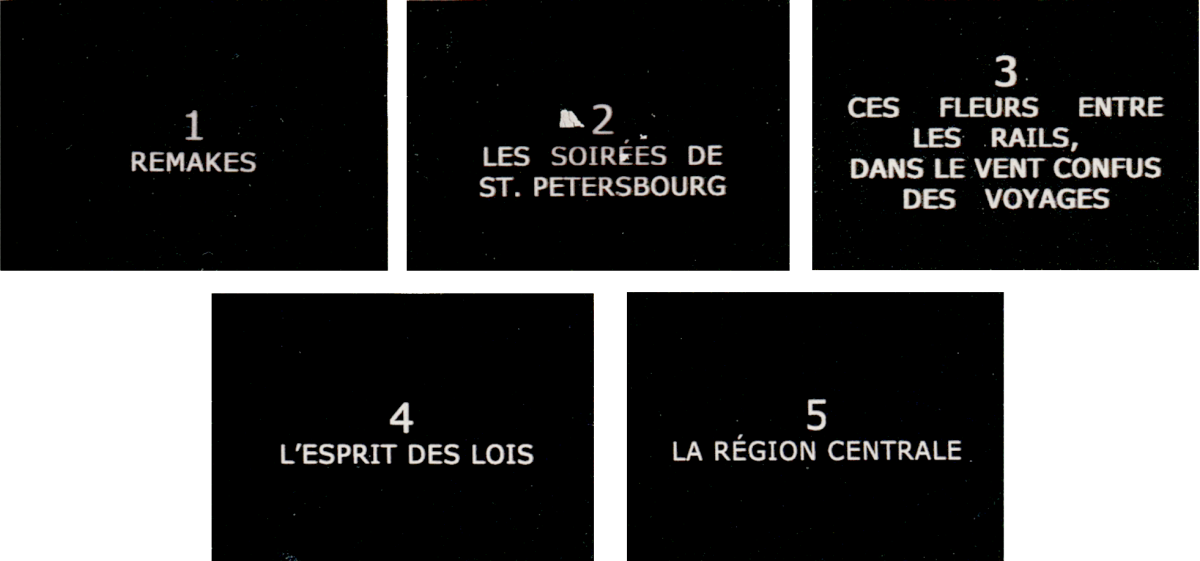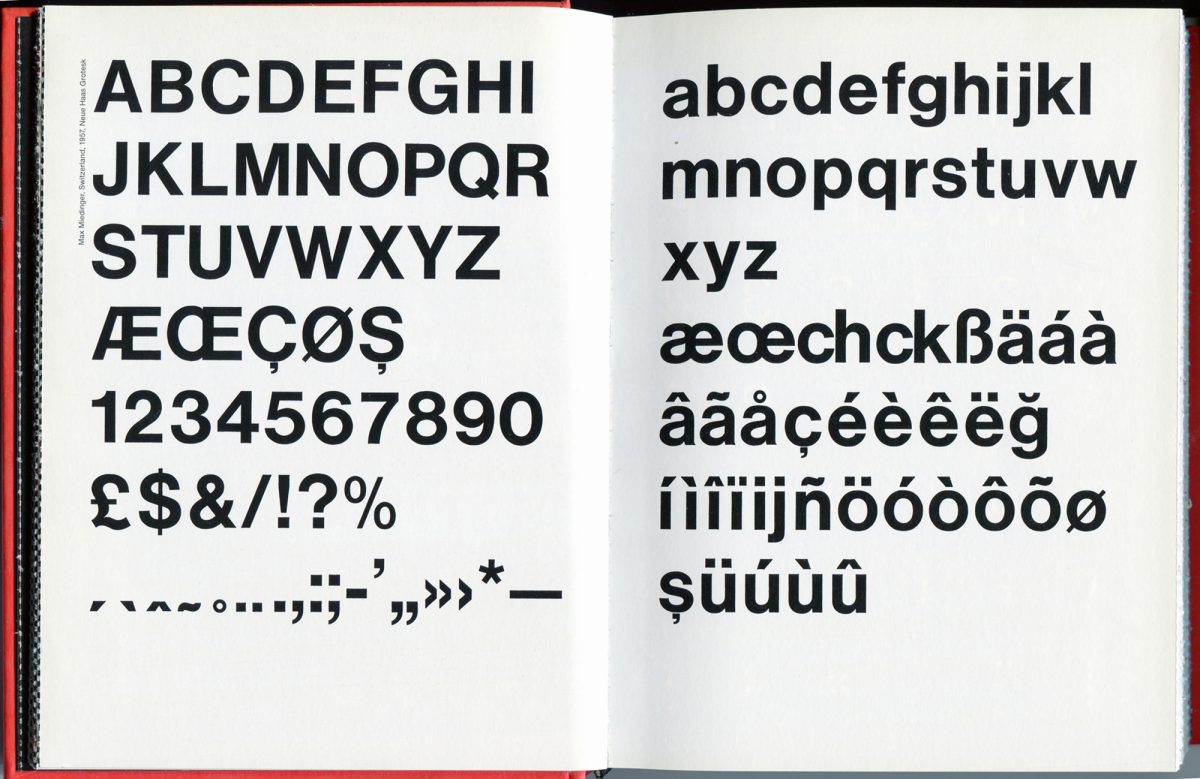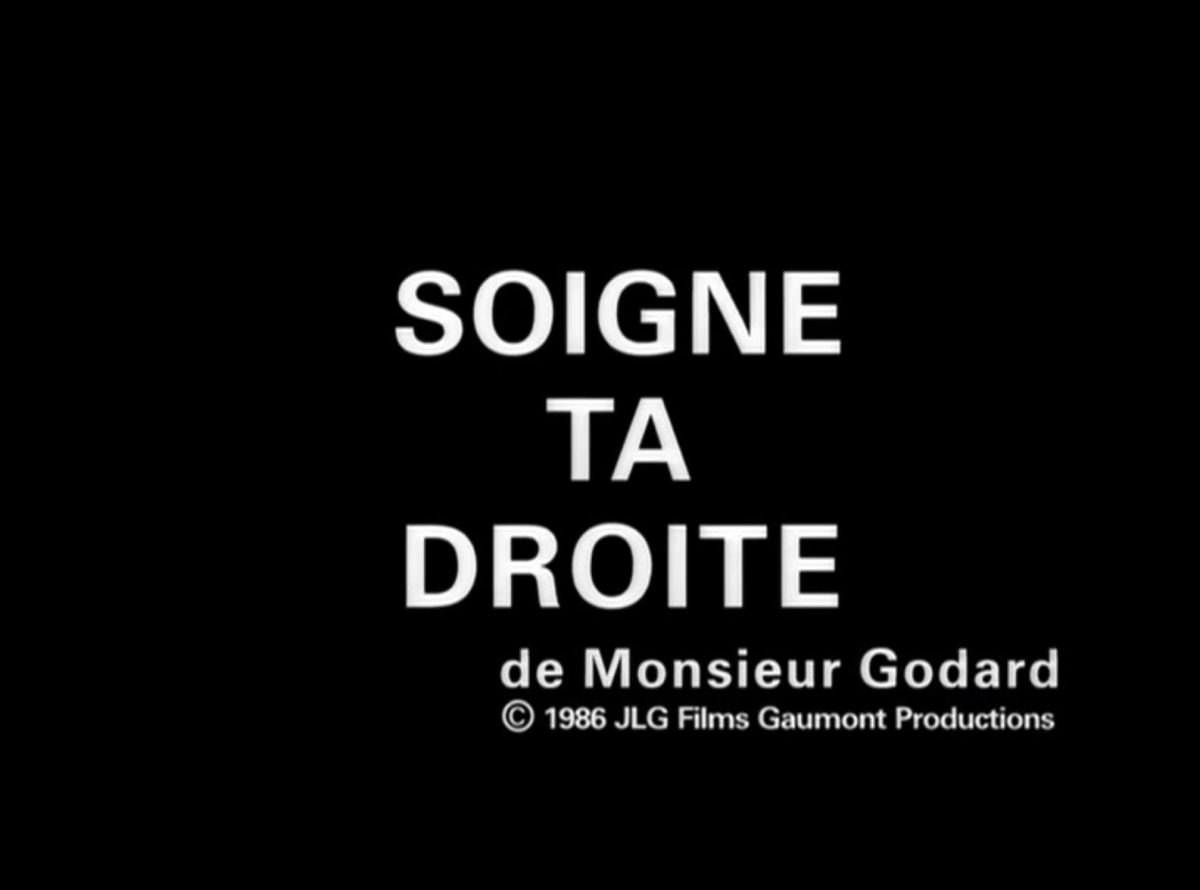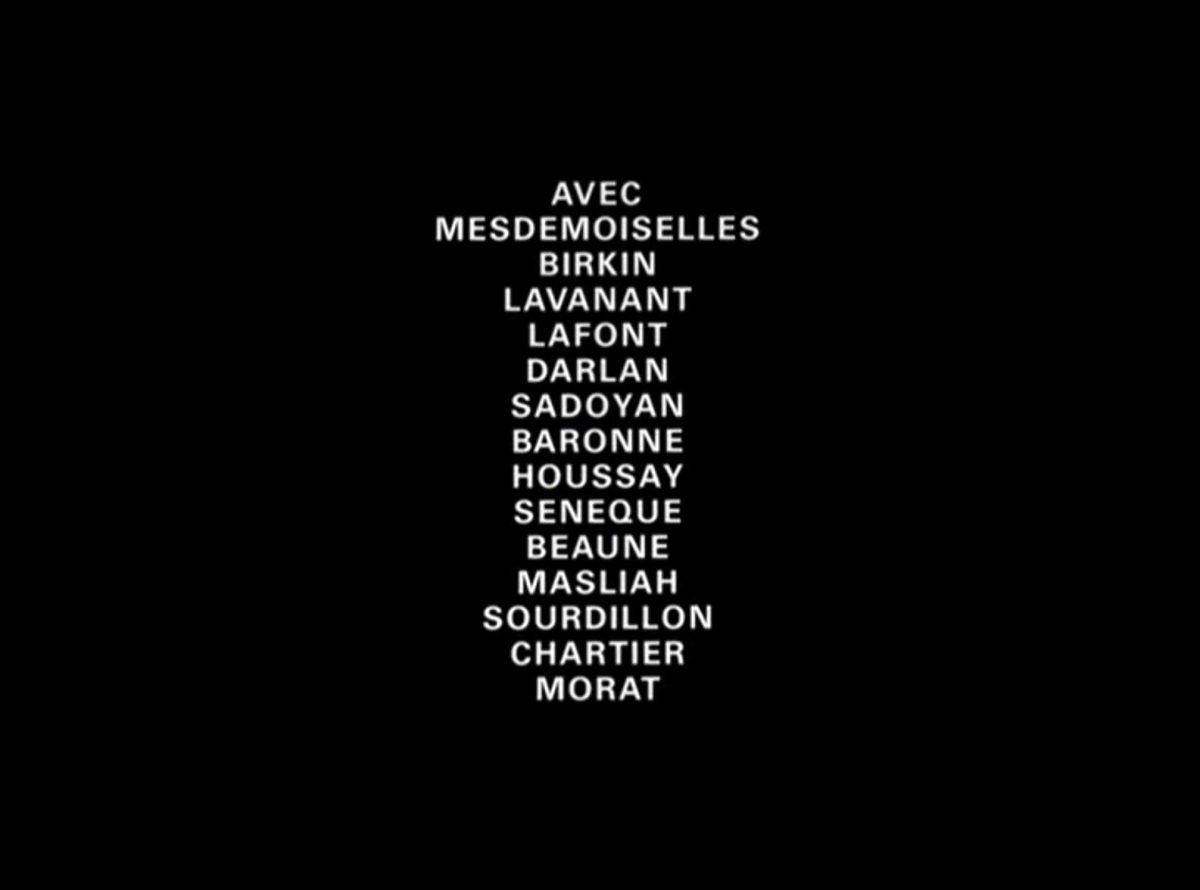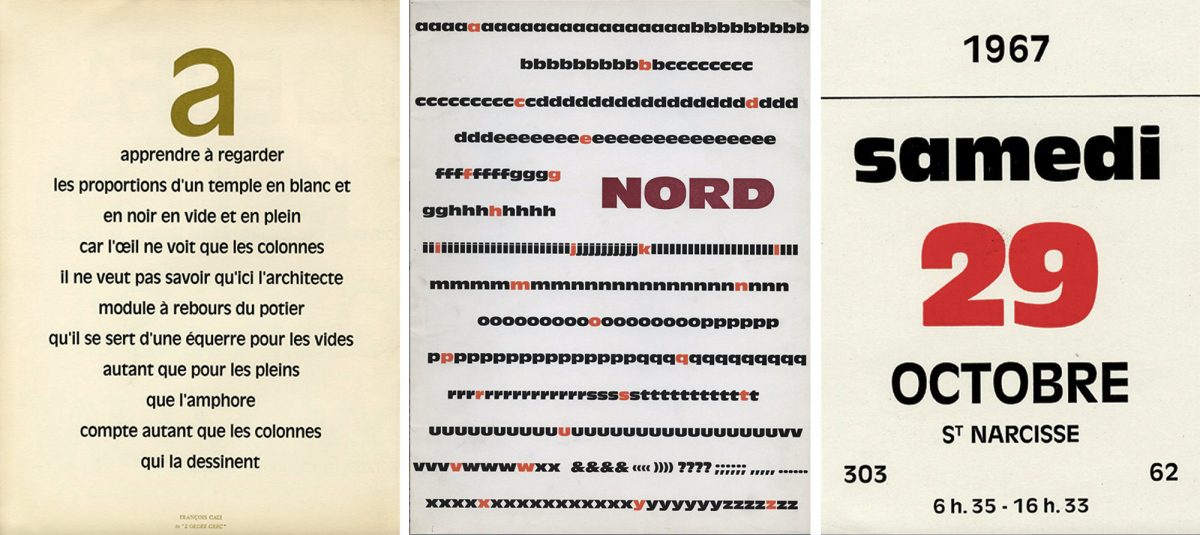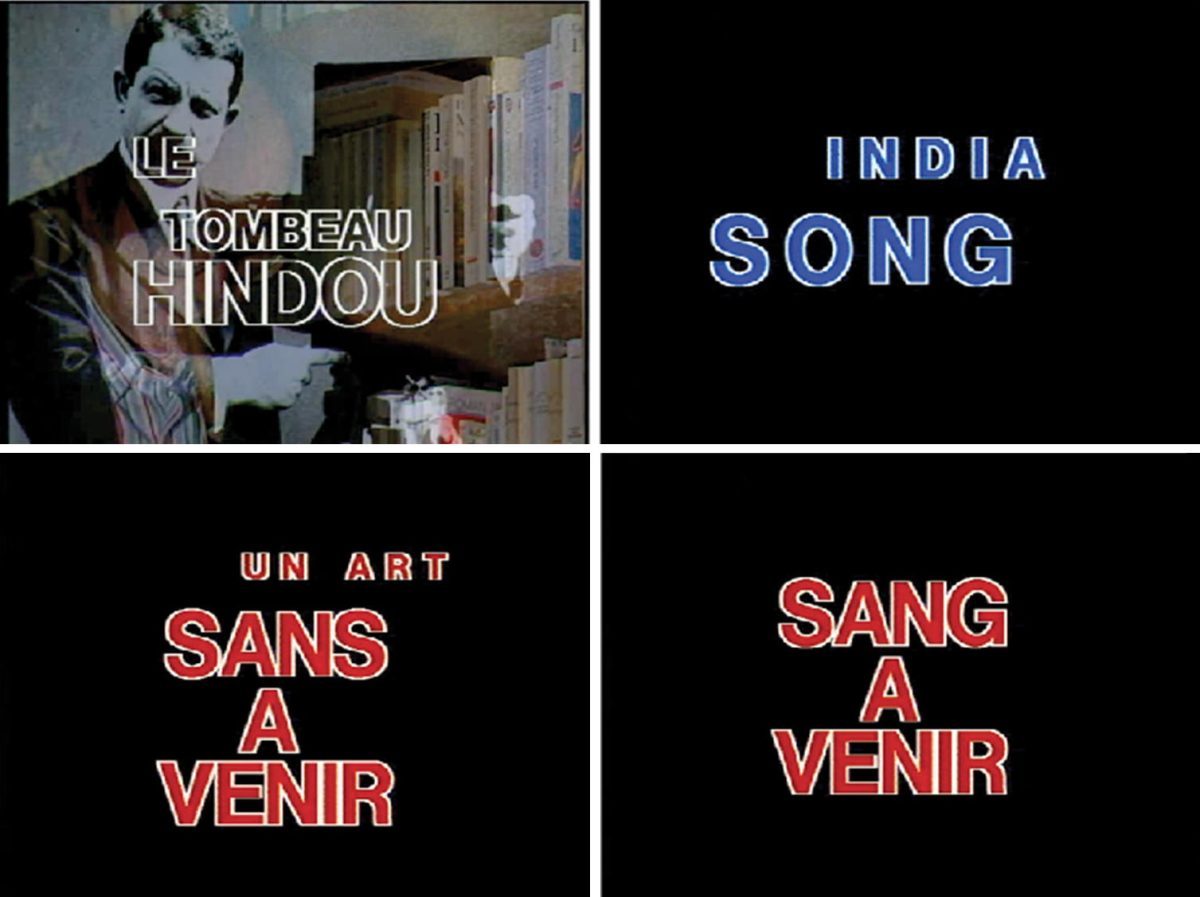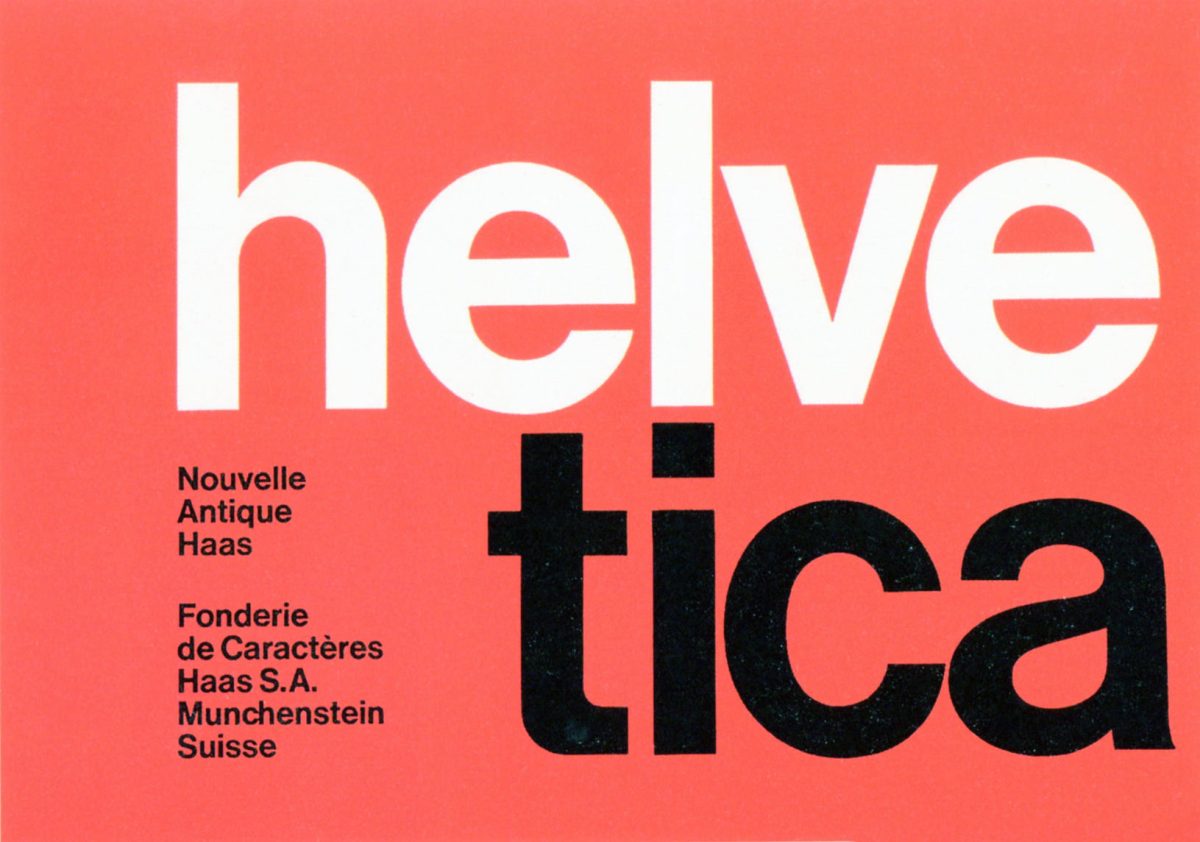
Jean-Luc Godard, the Typographer with a Movie Camera
Printed or filmed, Jean-Luc Godard’s graphic production surprises by its frequency and formal audacity. Whether inserts or credits, trailers or commercials, press kits or special issues, all of his work bears his trademark, even if his signature does not always formally attest to it. A particular facet of his graphic work here concerns his use of typefaces.
Heir of the printed page
If Jean-Luc Godard is the cinema itself, he is also heir to the printed page. Layout design, and in particular typography, is for him the privileged means of experiencing at every opportunity the paradoxical relationships of text and image. A particular facet of his graphic work concerns the use he makes of type fonts. Three stages emerge through his filmography, marked by the use of a unique typography, whose subtle choice indicates significant aesthetic and political stakes.
For the first two phases it is about the very French Antique Olive, designed by Roger Excoffon between 1965 and 1967, which was followed by the symbol of Swiss typography, Helvetica, from the 1980s to 2010. The third phase is distinguished by the use of so-called screen fonts (Tahoma or Verdana) designed by Matthew Carter. Godard uses them in his last two works to date, Adieu au langage (“Farewell to Language”, 2014) and Le Livre d’image (“The Picture Book”, 2018). If the primary function of typography is to show the text, Godard’s underlying question, whatever the medium (video, paper or film), is a painter's preoccupation: How to represent thought and what colour (political and pictorial) to give it. How to print a thought in movement and free oneself from the fixation of the text on the page? How to make a book while making a film? Typography is the privileged visual mediation through which Godard tries to put an end to the competition between text and image in the production of thought.
From left to right, blue-white-red cards of the films “Deux ou trois choses que je sais d’elle” (“Two or Three Things I Know About Her”, 1966); “La Chinoise” (“The Chinese”, 1967) and "Week-end" (1967), composed in Antique Olive.
First phase. Antique Olive period or the era of blue-white-red typography
In an interview with Alain Jouffroy in 1966, Godard explicitly summarized his use of blue-white-red and the significance he intended to give it: “I believe a little in nationalism, but in a nationalism of poetry, not at all political: I like that Delacroix is French and Beethoven is German…”. And “Do you believe in the soul of a people? " asks Jouffroy.“I can’t express it that way because it sounds a bit too big, but it is a bit that.” 1
Latin Graphics and Right-wing Heritage
At the crossroads of complex ramifications, his recurring reference to France extends in particular to typography. Thus in the mid-sixties, Godard’s graphic compositions were distinguished by a systematic use of Antique Olive, a very French typeface. Its creator, Roger Excoffon, through the impact of his various designs on the French landscape, particularly the signs of small shops (the Mistral, the Banco, the Choc or the Calypso) shaped a visual identity specific to the country in the fifties.
From left to right, extract of the first specimen [1960]; cover of the Antique Olive specimen [circa 1959] and ephemera composed in Antique Olive © Musée de l'imprimerie de Lyon.
From left to right, covers of the specimens Mistral [1953], Banco [1951], Choc [1955] and press announcement, back cover, “Caractère” n°12, 1958. © Musée de l'imprimerie de Lyon and Excoffon Archives, Rosaz 2017.
Original drawing, Calypso typeface, circa 1957. © Excoffon Archives, Rosaz 2017.
Antoine de Baecque underlines a specific feature of Godard’s production in the mid-sixties, characterized by “the constant, even to the point and touching, desire to be contemporary.” 2 The typography participates in this inscription in time stated by Excoffon in his preparatory notes to present his typeface: “Forget everything that has been done and consider what the alphabet can be for us in 1956. In a way, I am looking for the archetype, the exact representation of each person’s unconscious alphabet. Synthesis of all the influencing factors, as we said, the ideal alphabet.” 3.
When it was released between 1958 and 1960, the Antique Olive was a radical novelty, which Dutch type designer Gerard Unger comments in retrospect as follows: “An Excoffon’s response to the style dominated by Swiss pragmatism and objectivity.” 4 As a sign of the filmmaker’s keen attention to typography, this sanserif commonly used in advertising is identified by Godard for its originality, and unexpectedly used in numerous screenplays that punctuate his films, among them Pierrot le fou (Pierrot the Madman, 1965); La Chinoise (1967) and Week-end (1967), which are also distinguished by the use of the colors of the flag. In its chromatic and typographic alliance, this ensemble constitutes a condensed version, here referred to as “French taste”, an expression modelled on “Dutch taste”, in reference to the classification established in Pierre-Simon Fournier's Manuel typographique (1764-1766).
Credits from the film “Pierrot le fou” [Pierrot the Madman], 1965. Video and screenshots.
In this expression, which associates the shape and style of a character with a language, the word “taste” also refers to the idea of a flavour. For his difficult exercise in defining a French typographic standard, Unger adopted precisely this bias, imaginative and evocative, in “La Frontière de la bière et du vin” (The Border of Beer and Wine). 5 Analyzing the influence of French typography on his own practice – and particularly that of Excoffon’s typefaces, the Dutch typographer frees himself from questions of identity to open up to the culinary metaphor, or analogy: “a sort of typographic equivalent of the gestures one makes to accompany a discussion, of garlic and its smell, and of the other herbs one puts in the kitchen”. 6